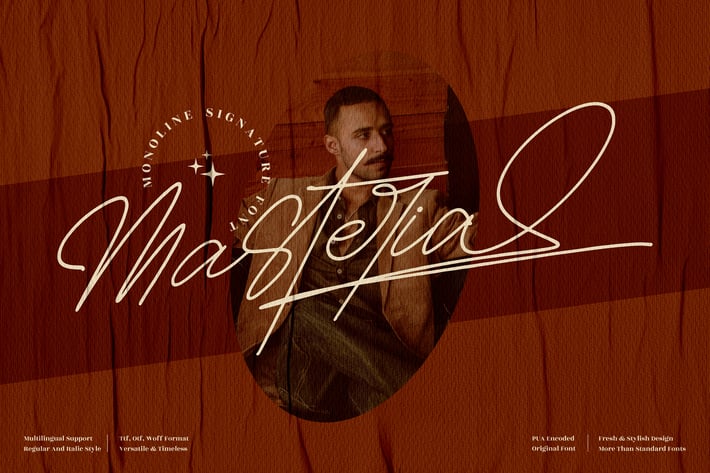
Masteria Monoline Signature Font
Masteria is a bold monoline signature font with fast, sweeping strokes and a confident handwritten rhythm. Its edgy, hand-drawn lines bring a modern, urban personality to your designs, making it perfect for lifestyle branding, cinematic titles, and social media visuals that need a strong, expressive signature touch.
Monoline signature style with fast, flowing strokes
Bold, confident letterforms ideal for logos and name marks
Natural handwritten texture with subtle roughness
Versatile for posters, branding, and editorial layouts
Lifestyle & fashion branding
Personal logo signatures & watermarks
Cinematic posters & title graphics
Social media headers & promotional posts
Packaging, labels, and premium stationery
Raw monoline signature energy for designs that need attitude and character.*